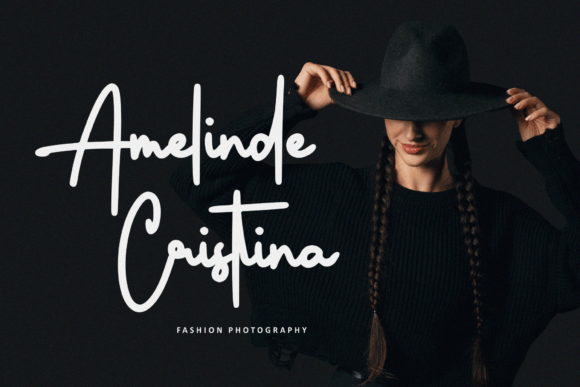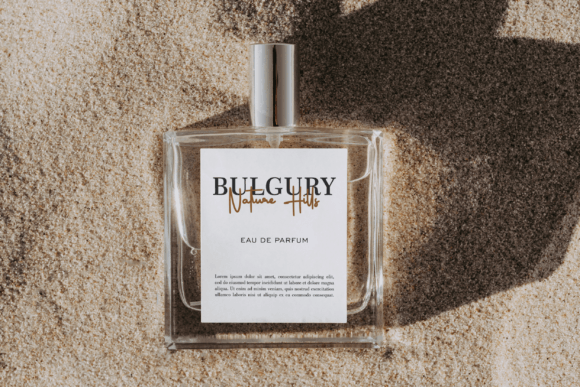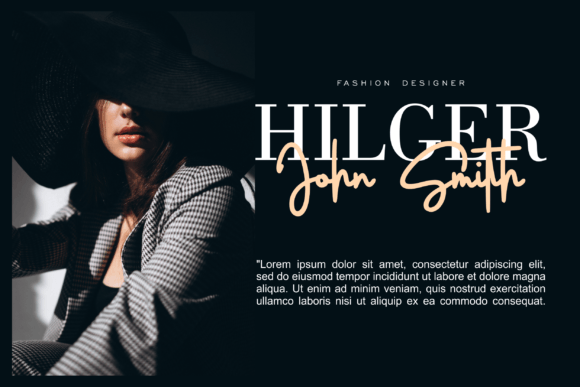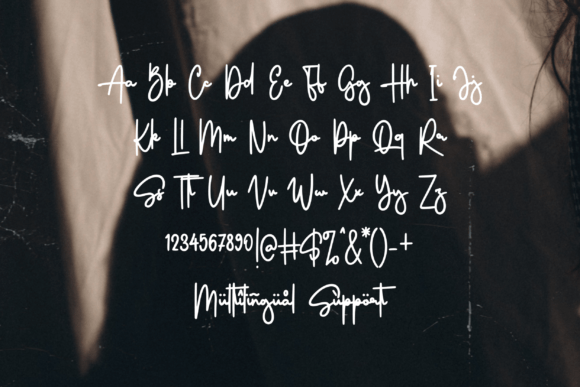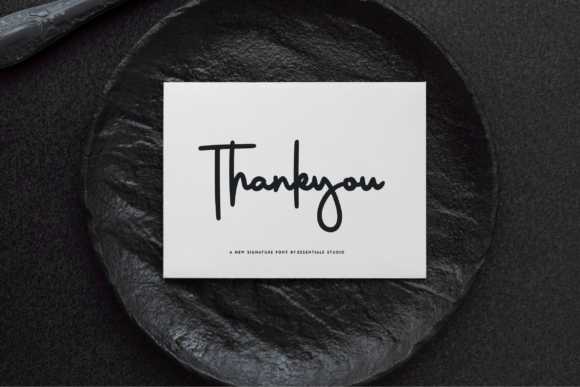
Unlock the Elegance of Allwish Honest: The Ultimate Luxury Signature Font
In the realm of typography, few fonts manage to convey the essence of luxury and sophistication as effortlessly as Allwish Honest. This exquisite signature font has emerged as a game-changer for designers, crafters, and brands seeking to elevate their visual identity. With its chic and refined finish, Allwish Honest is the epitome of elegance, poised to transform your brand imagery, product packaging, magazine layouts, and more.
The Allure of Allwish Honest
Allwish Honest boasts a distinctive typeface that exudes an air of refinement and poise. Its elegant strokes and meticulously crafted details make it an ideal choice for those who seek to add a touch of sophistication to their designs. Whether you’re a designer looking to enhance your brand’s visual identity or a crafter seeking to create stunning wedding invitations, Allwish Honest is the perfect tool to unlock your creative potential.
Elevate Your Brand Imagery
In today’s competitive market, brand imagery plays a crucial role in setting your business apart. With Allwish Honest, you can add a touch of luxury to your brand’s visual identity. Use this stunning font to create breathtaking brand logos, advertisements, and marketing materials that reflect your brand’s values and personality. The elegant finish of Allwish Honest ensures that your brand imagery exudes sophistication, making it more likely to resonate with your target audience.
Revolutionize Product Packaging
Product packaging is an essential aspect of any business, as it not only protects your products but also serves as a tangible representation of your brand. Allwish Honest can help you create stunning product packaging that stands out on store shelves. Use this exquisite font to add a touch of elegance to your product labels, boxes, and bags, making your products more appealing to potential customers.
Curate Impeccable Magazine Layouts
Magazine layouts require a font that can convey a sense of sophistication and refinement. Allwish Honest is the perfect choice for designers seeking to create visually stunning magazine layouts. With its chic and refined finish, this luxury signature font can help you create captivating headlines, elegant pull quotes, and beautiful body text that engages your readers.
Extend the Style to Social Media
In today’s digital age, social media plays a vital role in any business’s marketing strategy. With Allwish Honest, you can add a touch of elegance to your social media posts, making them more visually appealing and engaging. Use this stunning font to create breathtaking social media graphics, captions, and stories that reflect your brand’s personality and values.
Add a Flourish to Your Wedding Invitations
Wedding invitations are a special way to share your joyous occasion with loved ones. With Allwish Honest, you can create stunning wedding invitations that exude elegance and sophistication. This exquisite font is perfect for adding a touch of luxury to your wedding stationery, making it a memorable keepsake for years to come.
Unlock the Full Artistic Potential of Allwish Honest
Allwish Honest is more than just a font – it’s a creative tool that can help you unlock your full artistic potential. With its elegant finish and refined details, this luxury signature font can inspire you to create breathtaking designs that reflect your unique style and vision. Whether you’re a designer, crafter, or brand owner, Allwish Honest is the perfect choice for anyone seeking to add a touch of sophistication to their designs.
Discover a World of Style and Refinement
In conclusion, Allwish Honest is a game-changing luxury signature font that offers a world of style and refinement. With its exquisite typeface and elegant finish, this font is poised to transform your brand imagery, product packaging, magazine layouts, and more. Whether you’re seeking to elevate your brand’s visual identity or add a touch of sophistication to your designs, Allwish Honest is the perfect tool to unlock your creative potential.
Experience the elegance of Allwish Honest today and discover a world of style and refinement that will take your designs to the next level.